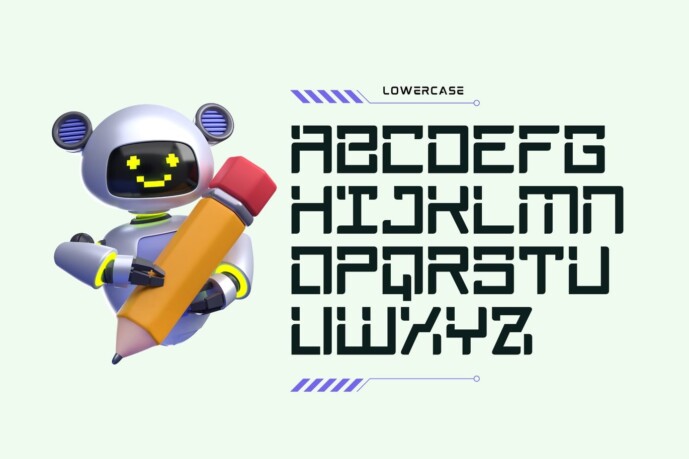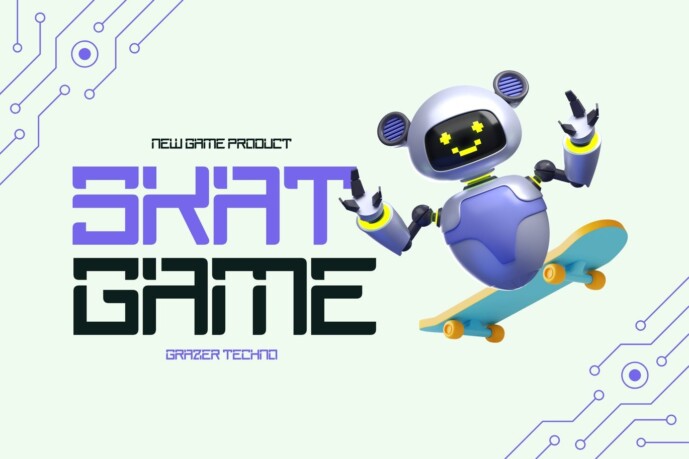
Techno Grazer Font
Techno Grazer Font offers beautiful typographic harmony for a variety of design projects, including logos and branding, social media posts, advertisements, and product designs.